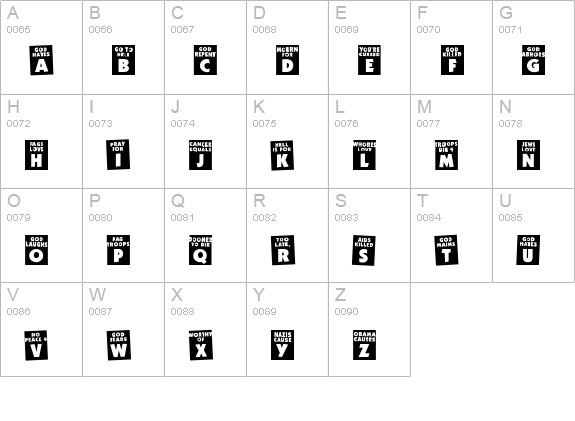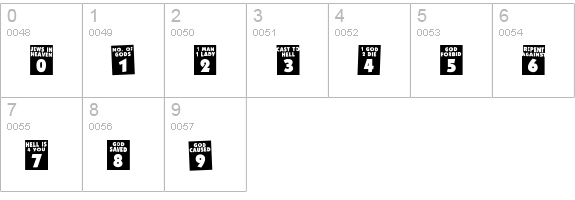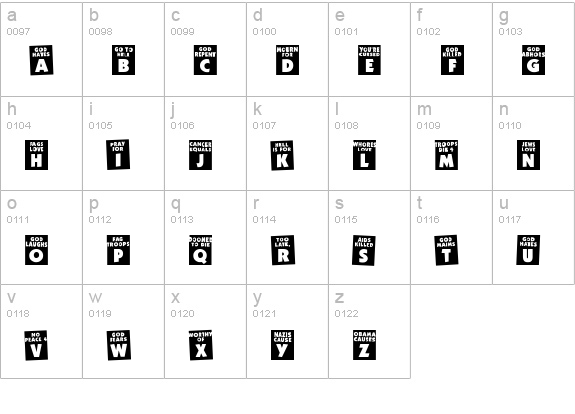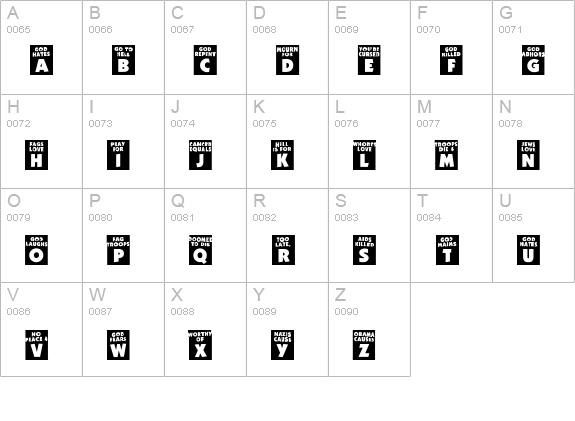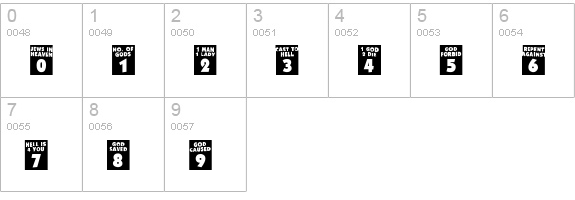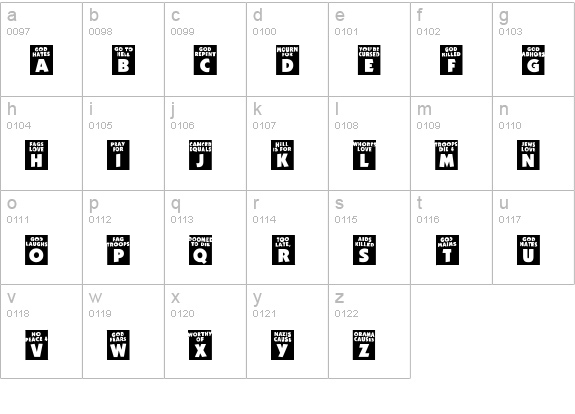
God Hates Westboro Font Details
The God Hates Westboro font is a striking and bold typeface that exudes a powerful and impactful presence. With its strong, angular letterforms and unique design elements, this font commands attention and makes a bold statement. The sharp edges and distinct style of God Hates Westboro give any design a rebellious and edgy vibe, perfect for projects that require a touch of defiance. This font is freely available for download at FontsMarket.com, making it easily accessible for designers looking to add a touch of attitude to their projects. Whether you're creating posters, logos, or social media graphics, God Hates Westboro is sure to make a bold statement and leave a lasting impression. Download this font today and unleash its power in your designs.